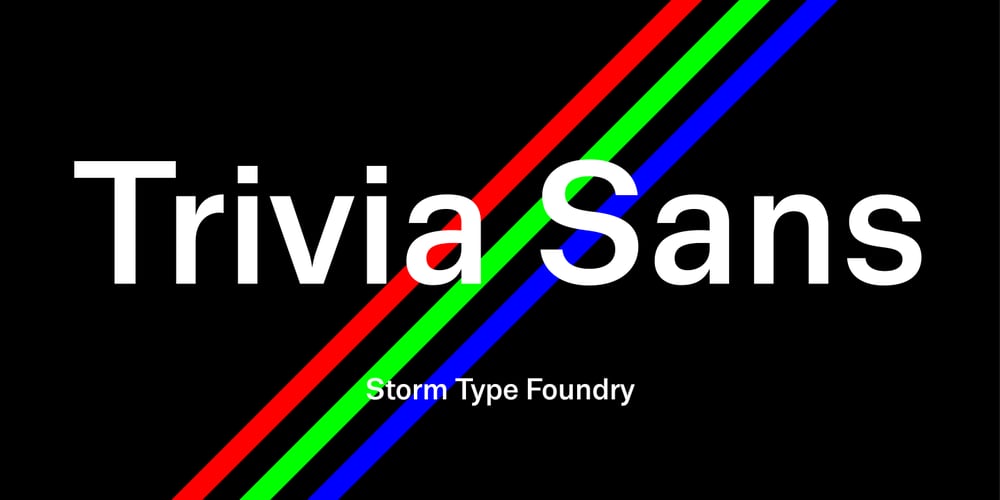
Trivia Sans
Trivia Sans font
Trivia Sans Font Family was designed by František Štorm and published by Storm Type Foundry. Trivia Sans contains 12 styles and family package options. When looking for a neutral typeface with no historic reminders, we always end up with notorious designs made about 60 years ago. It’s a part of the whole Trivia type system. To our surprise, there are still people who can’t distinguish three basic latin type categories. The present font family has been created for them. A simple typographic Trivia: three ways to look at printed word, three fonts to design anything from business card to a billboard, three tunes for endless variations.